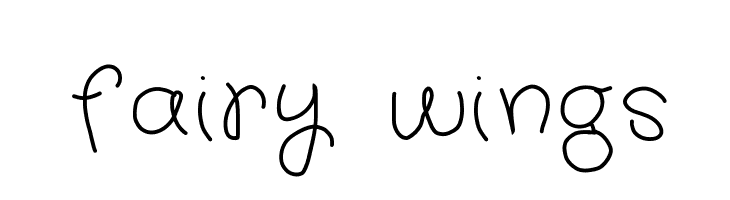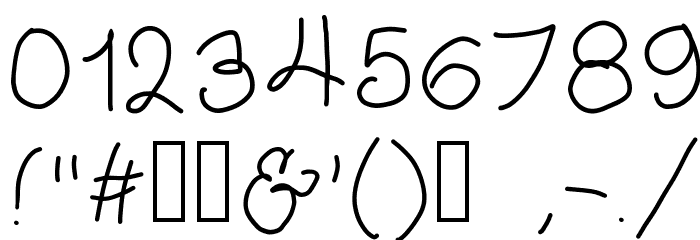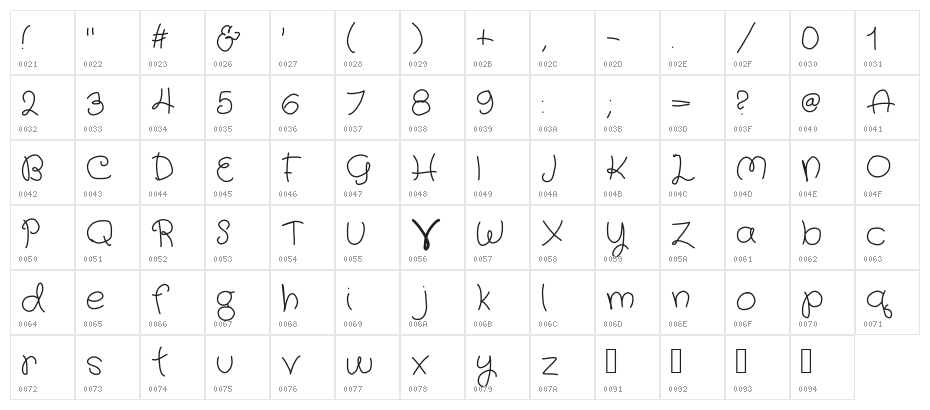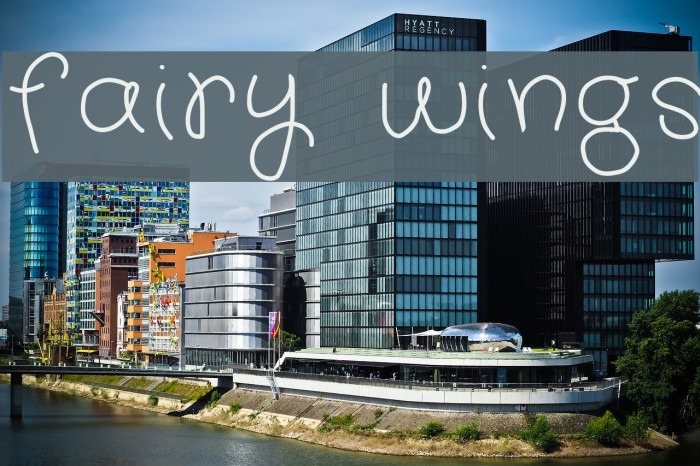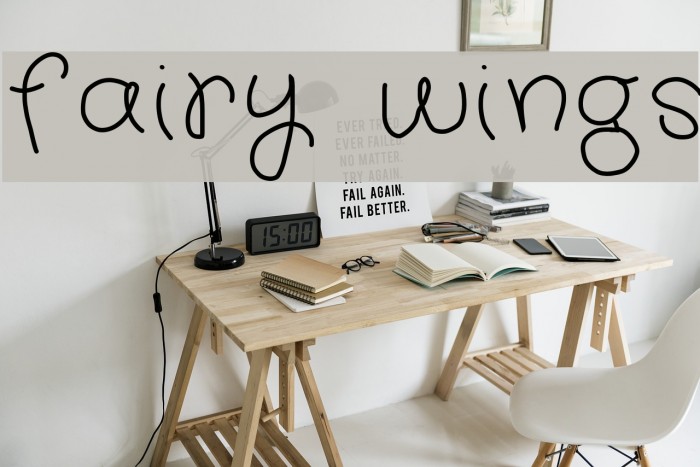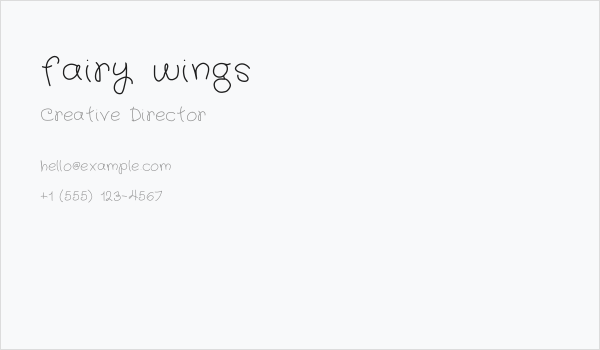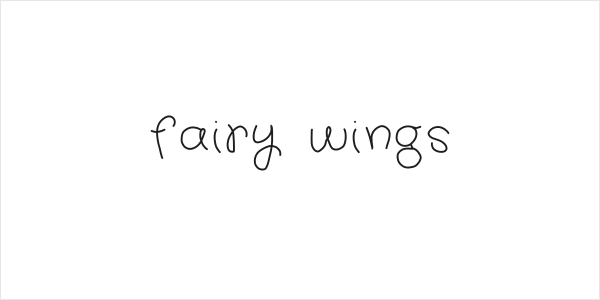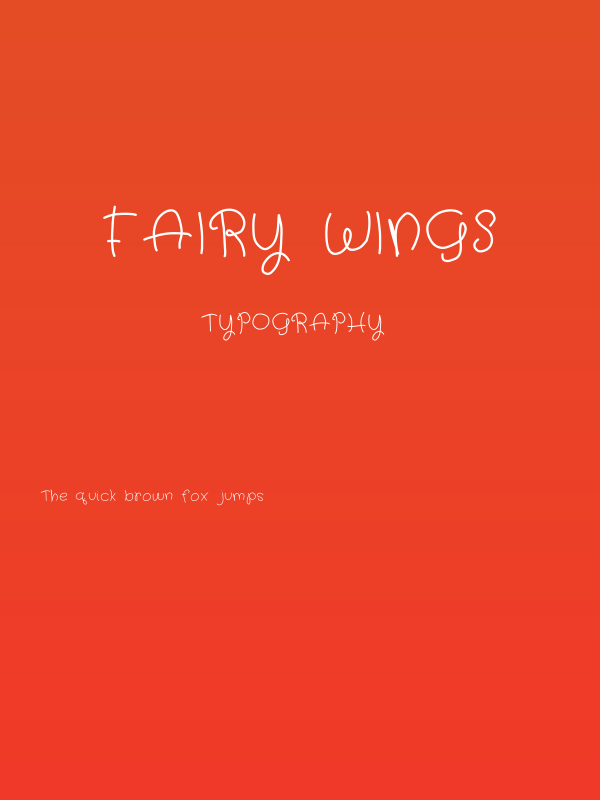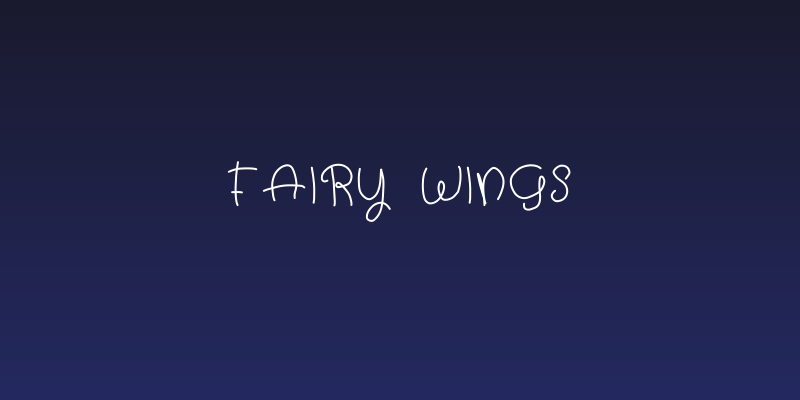
fairy wings Font
fairy wings Description
This whimsical and playful font features a handwritten style with a touch of fantasy, reminiscent of fairy tales. The letters are characterized by their flowing, looping strokes and a slightly irregular baseline, giving them a lively and dynamic appearance. The uppercase letters have a unique charm with their decorative loops and swirls, while the lowercase letters maintain a consistent style that complements the uppercase. The numerals are equally playful, with a distinct personality that matches the overall theme. Special characters are included, maintaining the same whimsical style, making this font versatile for creative projects.
Use CaseHeadlines, Logos, Invitations
Proposed ProjectsIdeal for children's books, fantasy-themed invitations, greeting cards, and playful branding.